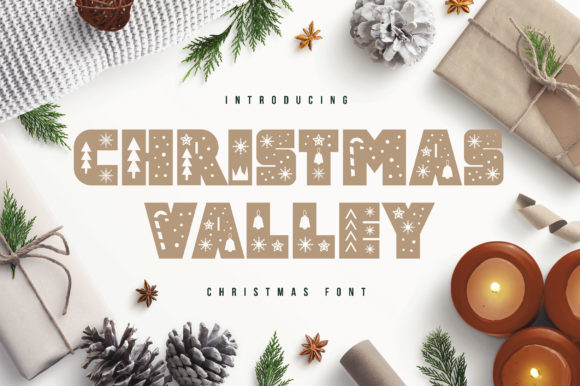
Step into a world of wonder and warmth with Christmas Valley Font, a decorative masterpiece that will transform your winter projects into enchanting realities. Let your creativity soar as you explore the endless possibilities of this captivating font, meticulously crafted to capture the essence of the holiday season.
Imagine the joy of crafting personalized Christmas cards, each adorned with unique and heartfelt messages brought to life by Christmas Valley's charming characters. Create breathtaking holiday invitations that evoke a sense of nostalgia and magic, leaving your guests eagerly anticipating the festivities to come. Unleash your inner artist as you design festive posters and flyers that radiate the spirit of the season, drawing crowds to your events with an irresistible allure.
But Christmas Valley's magic extends far beyond the realm of holiday cheer. Its versatility shines throughout the year, lending an air of elegance and sophistication to wedding invitations, birthday cards, and countless other personal projects. Let your imagination roam free as you explore the endless possibilities of this stunning font, transforming ordinary words into works of art.
With Christmas Valley as your creative companion, you'll discover a new level of expression, connecting with your loved ones in ways you never thought possible. Its enchanting characters will add a touch of whimsy to your everyday correspondence, turning emails, letters, and social media posts into delightful surprises.
So, embark on a journey of creativity and joy with Christmas Valley Font. Let its magic inspire you, allowing your imagination to soar and your projects to reach new heights. Embrace the wonder of the holiday season and beyond, capturing the hearts of all who witness your creations.